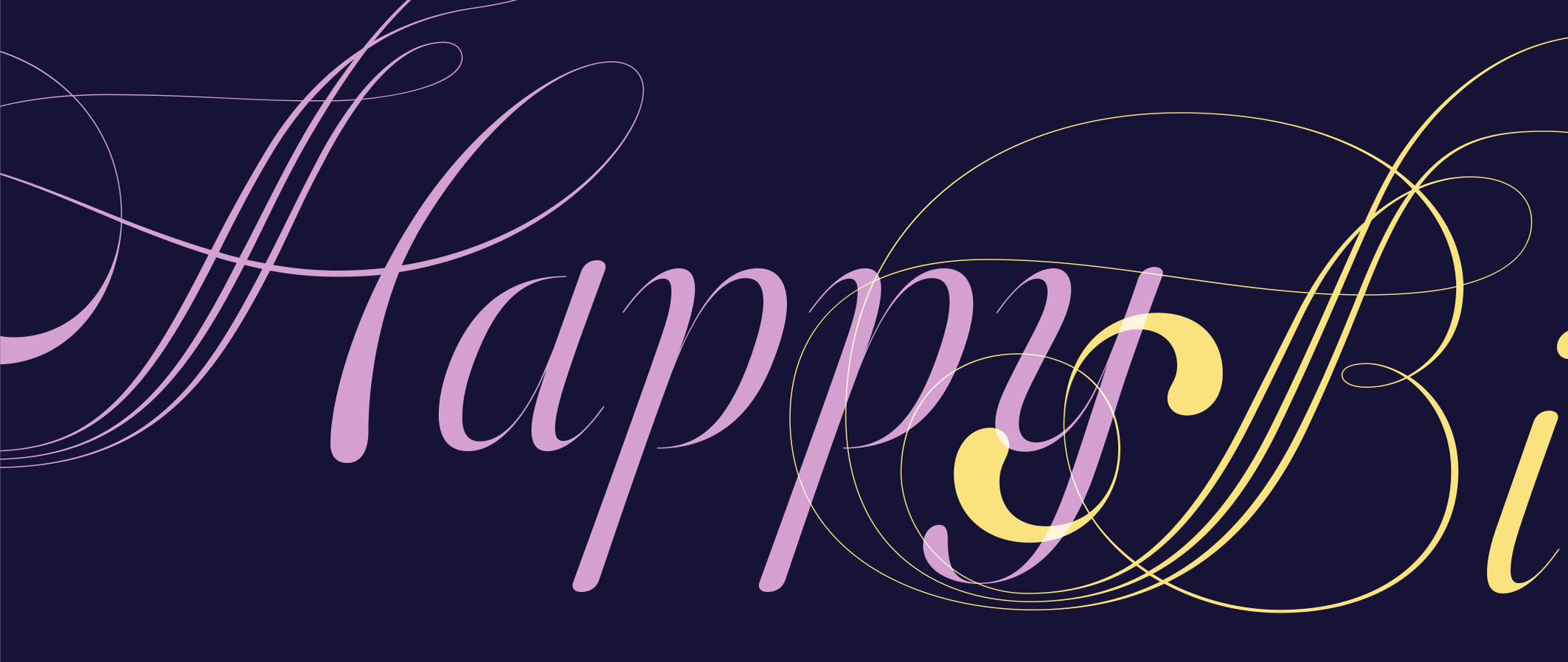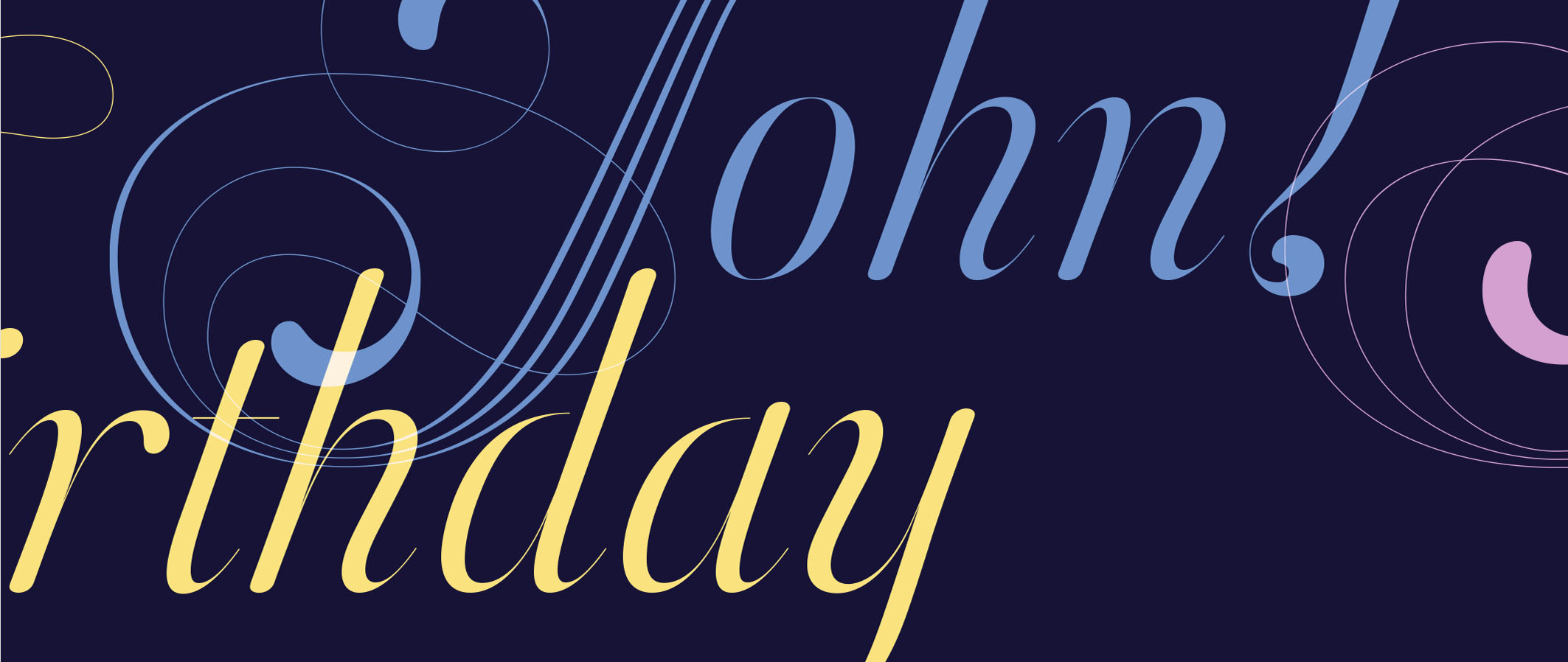
Orlando Samuels
Orlando is a result of my life-long interest in calligraphy and decorative lettering. A great tool for floral invitations and decorative headlines.